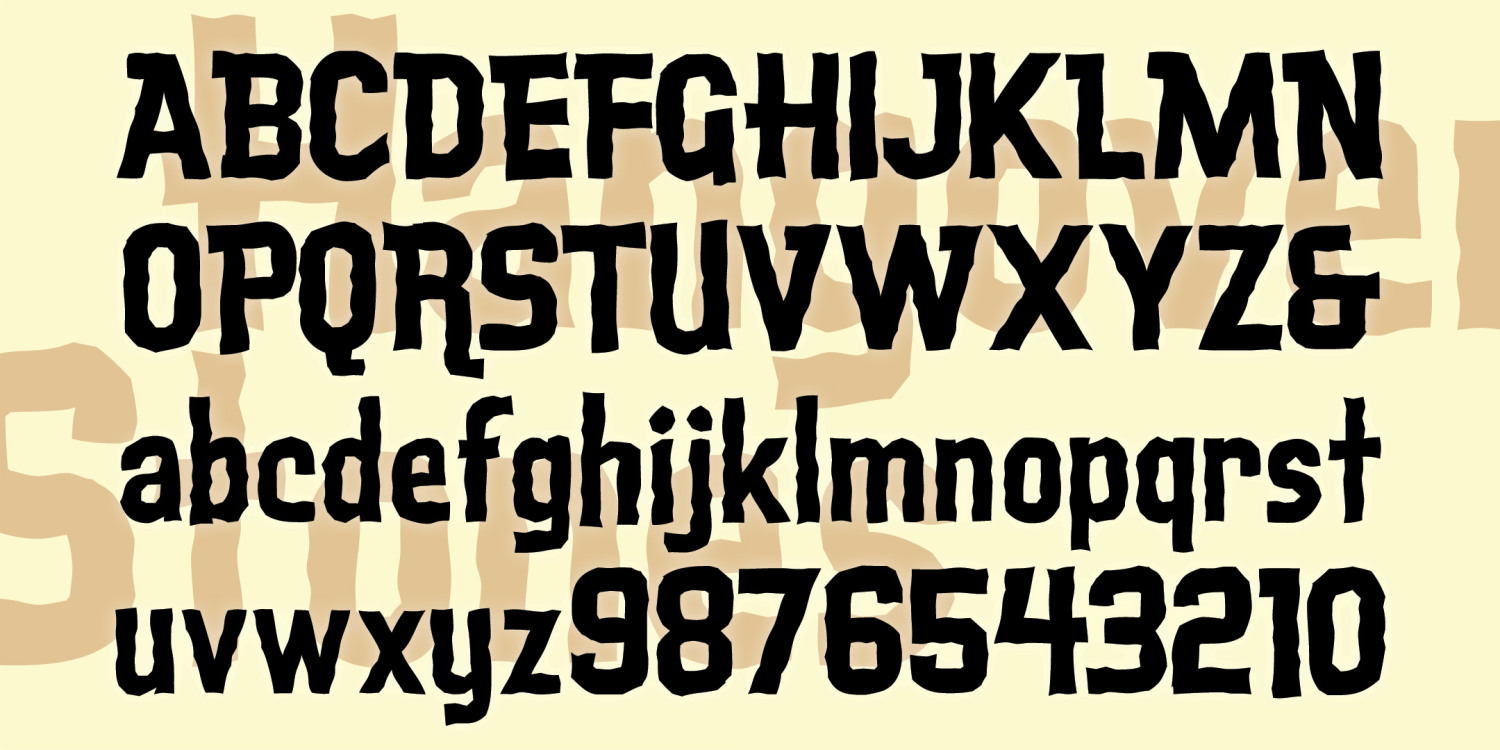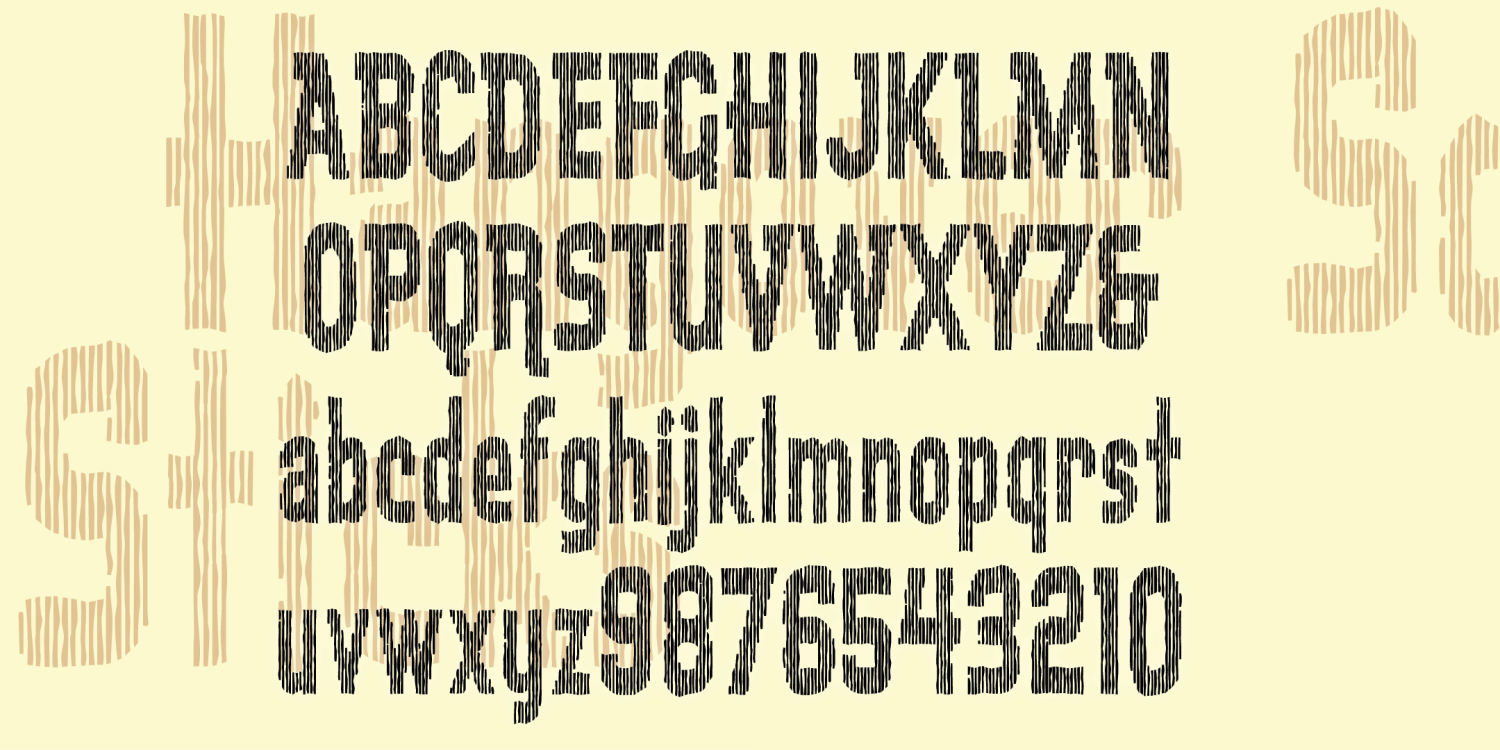
Hangover Square
HANGOVER SQUARE is a family of three fonts with early 1960s style and a variety of textures. The original font is a smooth sans serif with offbeat details. Hangover Square Stones has the same distinctive letterforms with a rocky edge. Hangover Square Sticks is a condensed version, composed of rough vertical lines.